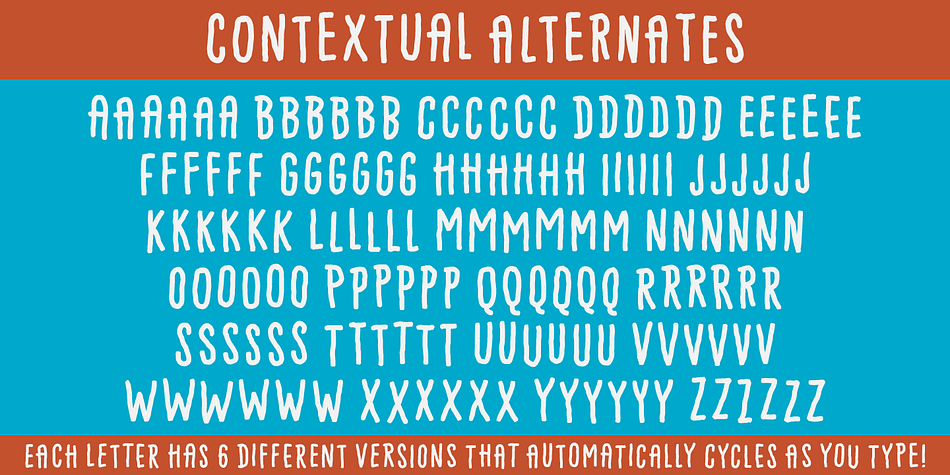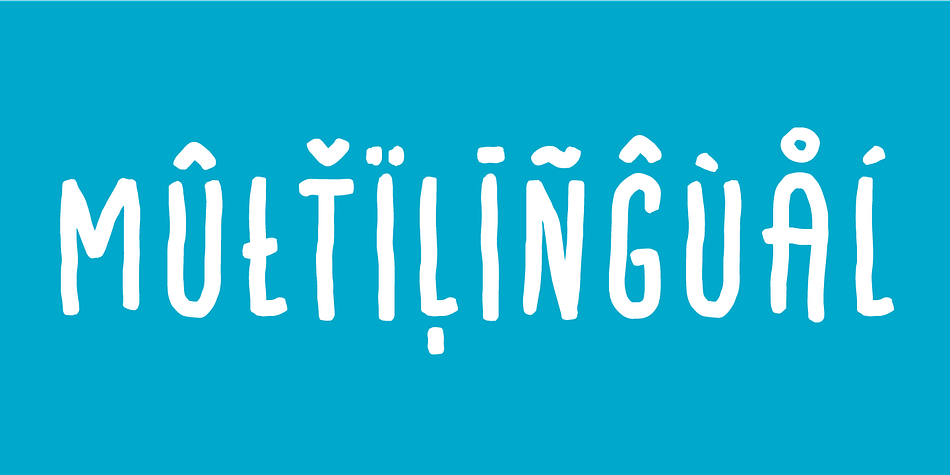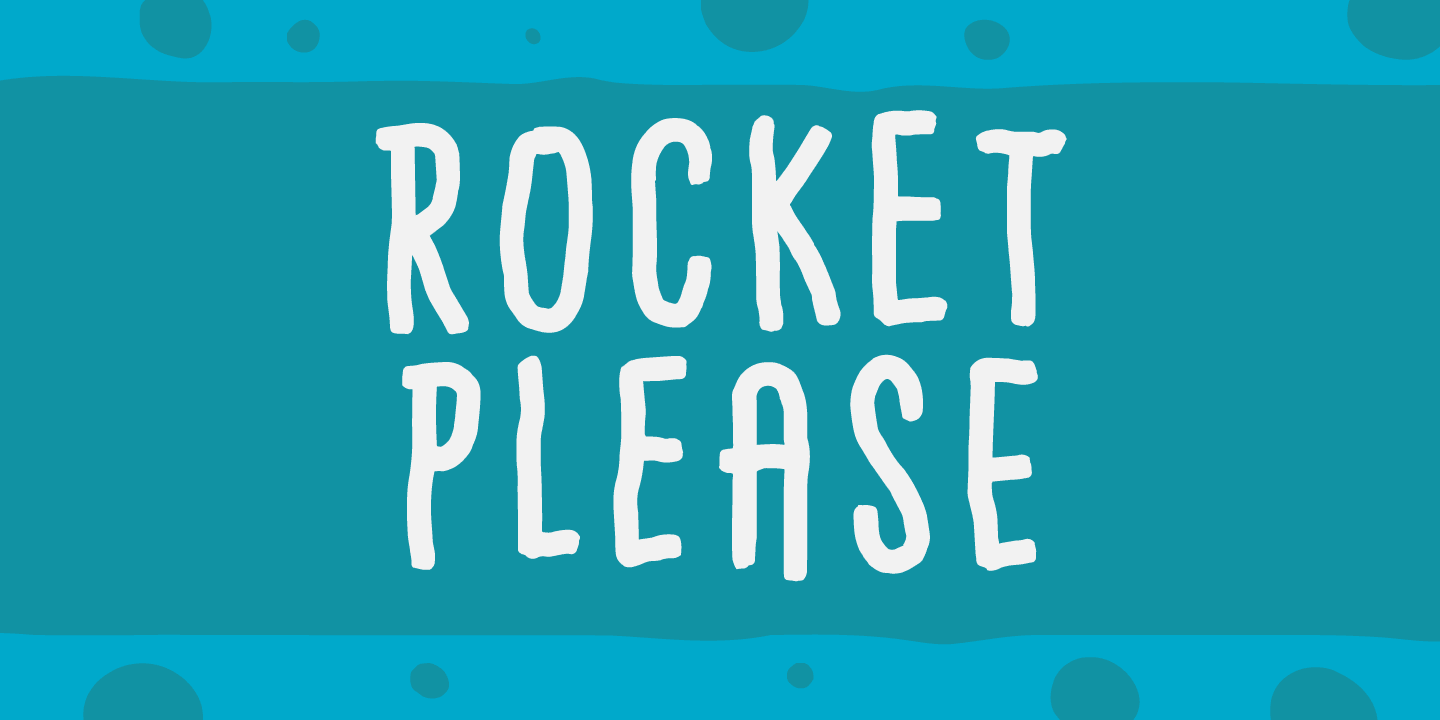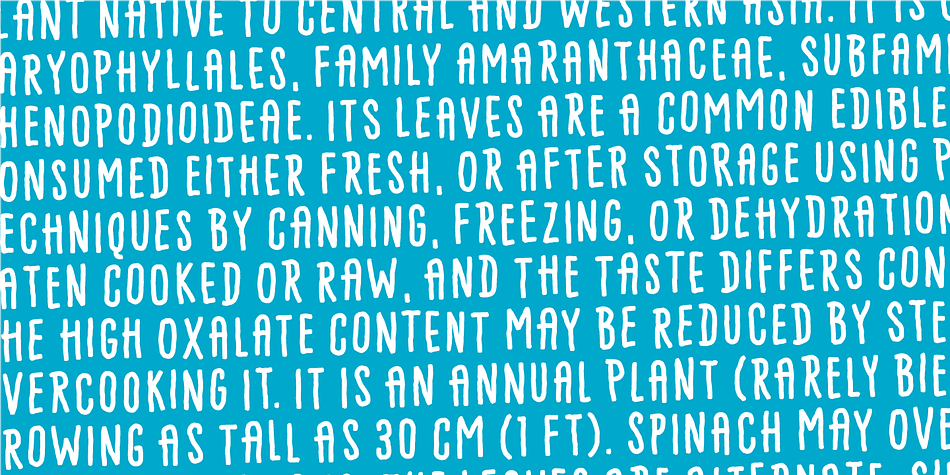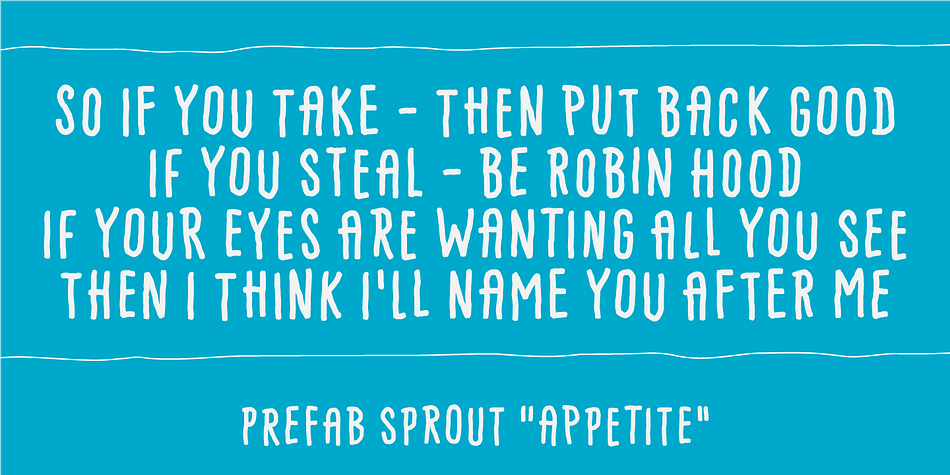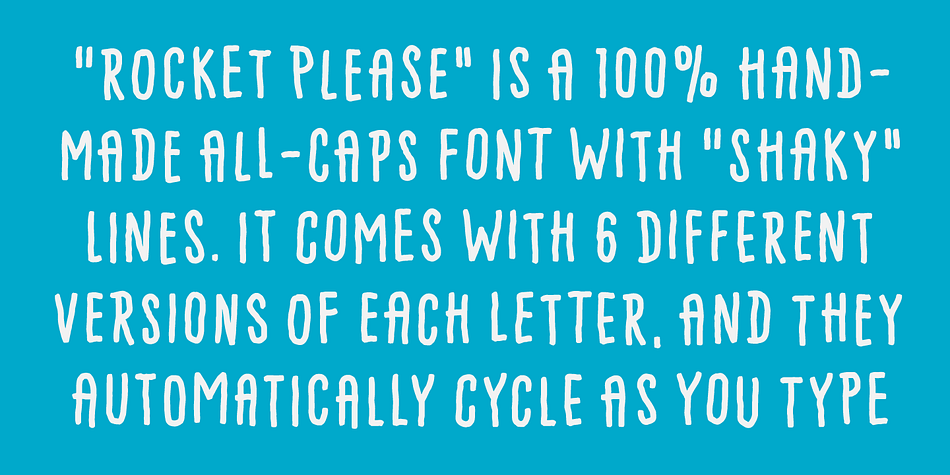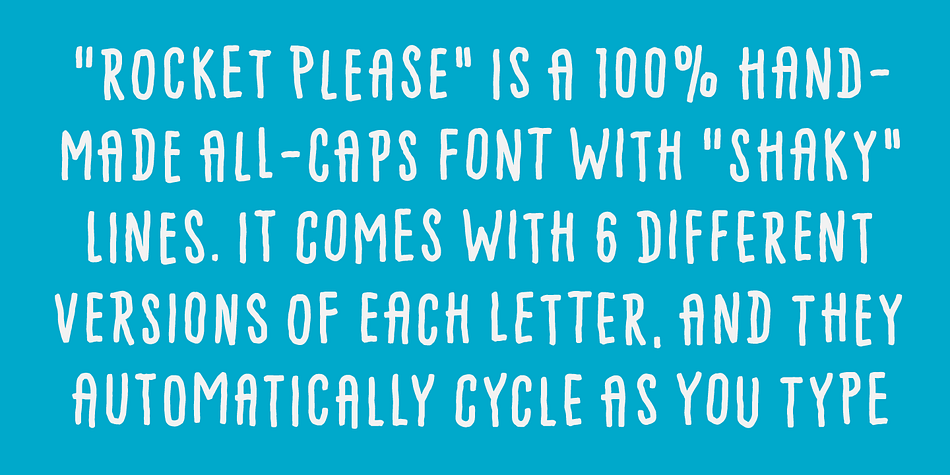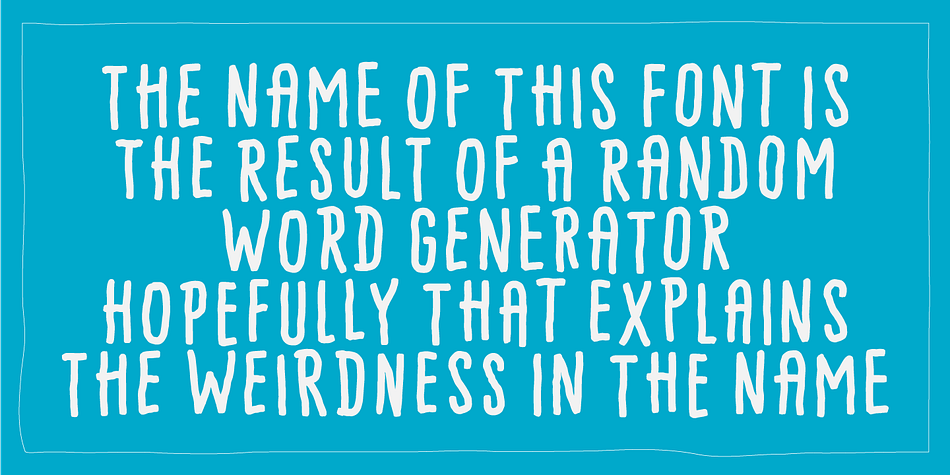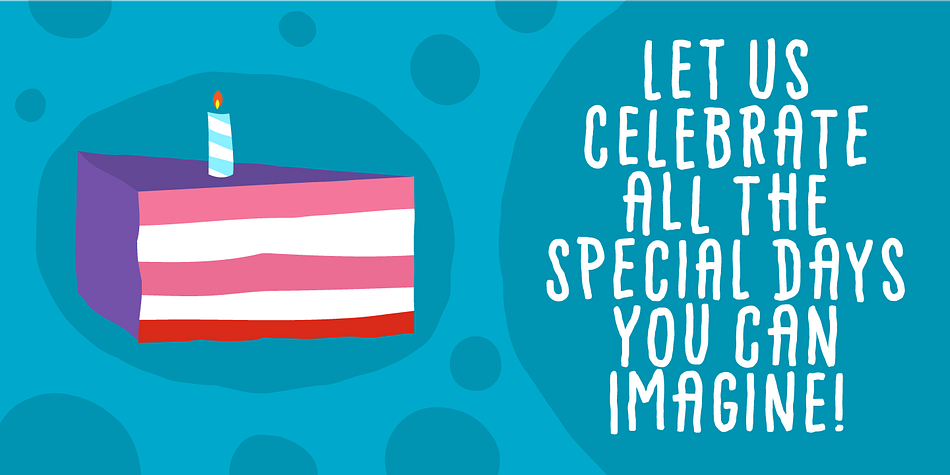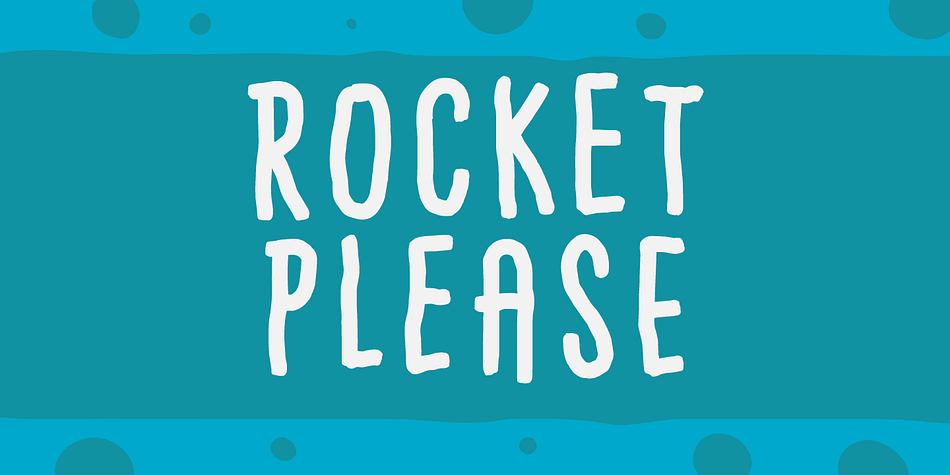
Designed by Jakob Fischer, Rocket Please is a hand display and hand drawn font published by Pizzadude.dk.
A charming font with shaky lines and 6 different version for each letter. Use it for something that needs a handmade and/or organic look. That could be children’s books, posters, greeting cards, product packaging ... anthything that needs a special appearance and charm.